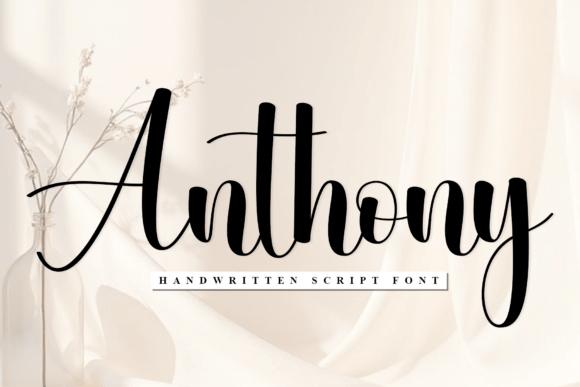
The Elegance of Anthony Font: A Designer’s Dream Come True
I’ll never forget the time I was working on a high-end branding project for a luxury fashion client. I had spent hours pouring over design concepts, but something was missing – the perfect font. That’s when I stumbled upon Anthony Font, a stunningly elegant and highly refined modern handwritten script font that embodies professional artistry. In this article, I’ll share my experience with Anthony Font, its features, and how to make the most of it in your designs.
An Honest Review of Anthony Font
- ✨ Elegant and sophisticated design with dramatic contrast between thick downstrokes and delicate hairlines
- ✅ Beautifully integrated ligatures and swashes that enhance its sophistication
- ✅ Conveys the unique and professional quality of a skilled calligrapher
- ✅ Ideal for high-end branding, luxury packaging, and personalized stationery
While Anthony Font is an exceptional typeface, there are a few things to keep in mind:
- ⚠️ The font’s elegance can be overwhelming if not used thoughtfully; be mindful of legibility and font size
- 🤔 Some characters, like the lowercase ‘l’, can be a bit tricky to read if not used in context
The Designer Inspiration Behind Anthony Font
The story behind Anthony Font is one of passion and dedication. According to its creators, Anthony Font was inspired by the art of traditional calligraphy. The font’s elegant design and refined features are a testament to the skill and craftsmanship of calligraphers. Whether you’re a designer, crafter, or creative hobbyist, Anthony Font is sure to inspire your next project.
| Font Name | Anthony Font |
| Author | Creatype Designer |
Q: What makes Anthony Font so special?
A: Anthony Font’s dramatic contrast between thick downstrokes and delicate hairlines, along with its beautifully integrated ligatures and swashes, make it a standout typeface.